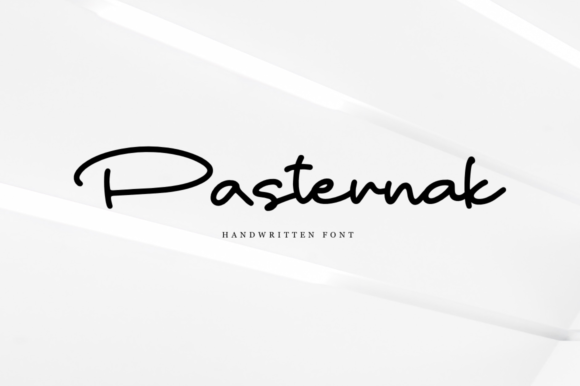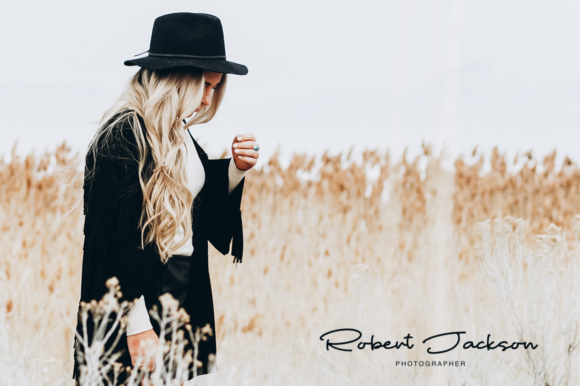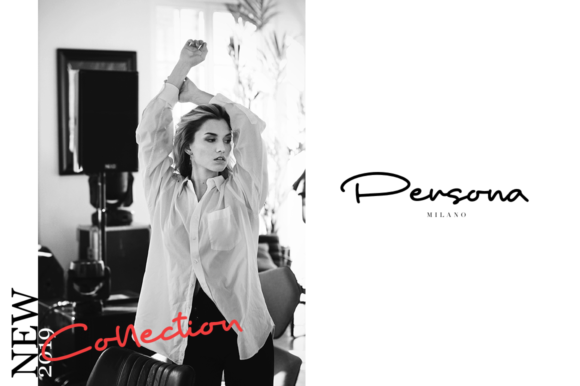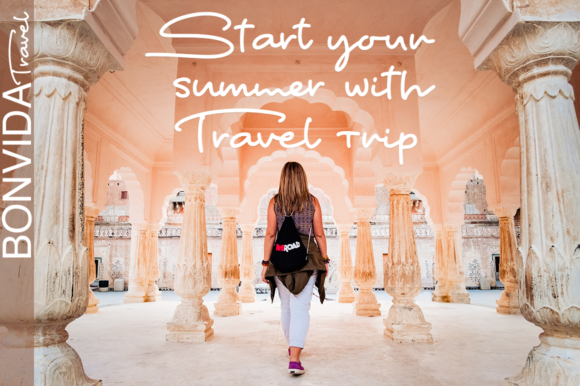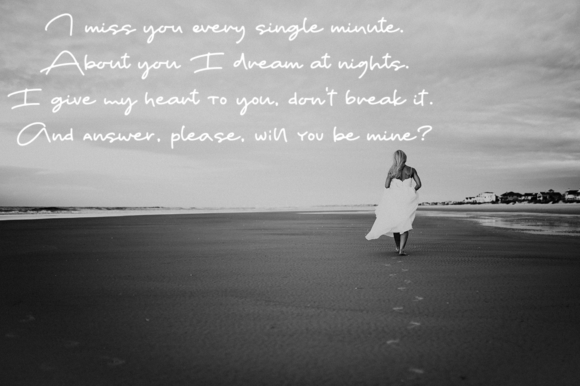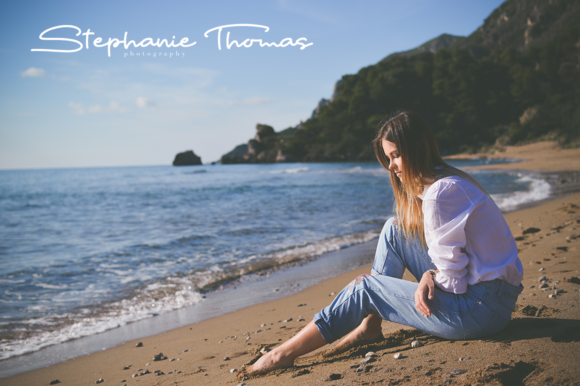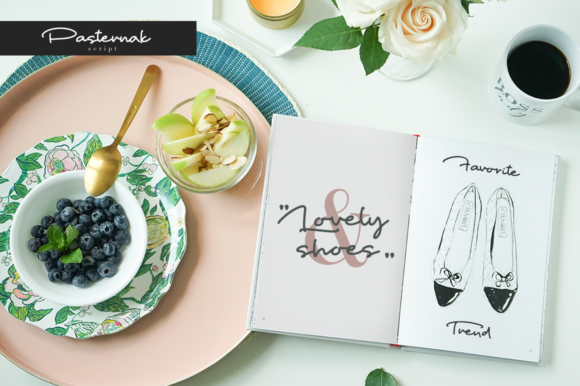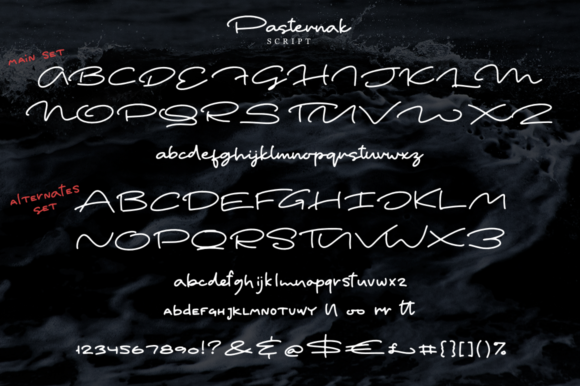
Pasternak Font
About Pasternak Font
The Pasternak is an amazing handwritten script. It’s perfect for branding and decorating your projects, but can also be used to make beautiful wedding invitations, book covers, stationary, and much more!